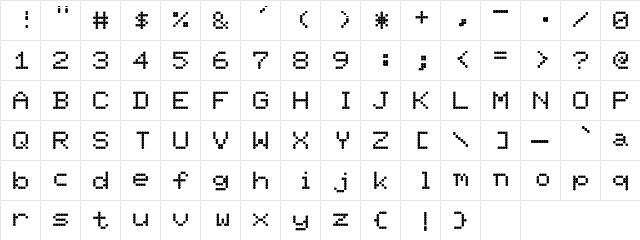
Pixel_Screen_Font-Light Regular
Design Context for Pixel_Screen_Font-Light Typeface
Pixel_Screen_Font-Light is rooted in pixel-grid construction, making it a natural fit for game UI, retro computing aesthetics, and digital nostalgia projects.
A natural choice for retro game titles, chiptune music branding, 8-bit UI, and digital nostalgia projects.
Pro Tip: Pair Pixel_Screen_Font-Light with flat colour palettes and simple geometric UI elements to reinforce its digital aesthetic.